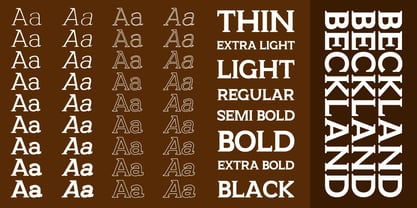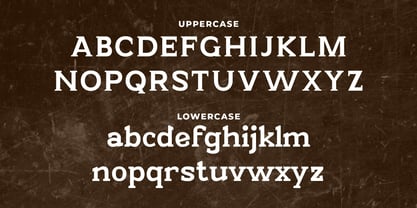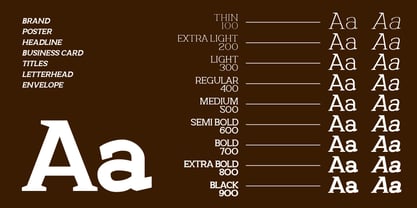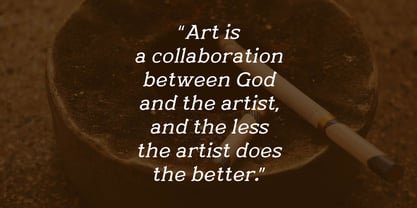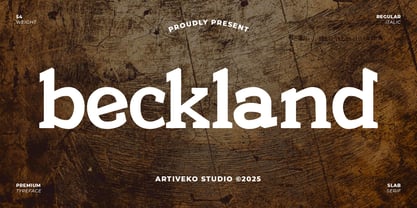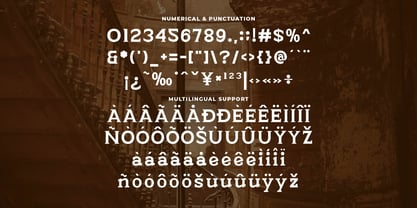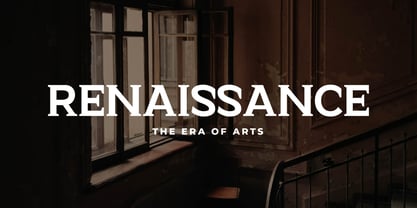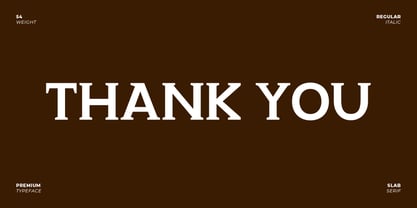
Beckland
by Artiveko
The Beckland Font Family was designed by Iwan Alwan and published by Artiveko. Beckland contains 18 styles and family package options.
Beckland is a vintage serif font designed with classic elegance and timeless charm. Inspired by old-world typography, it features refined serifs and balanced letterforms, making it perfect for branding, packaging, book covers, and editorial design. With multilingual support, ligatures, and alternates, Beckland brings a nostalgic yet sophisticated touch, ideal for projects that seek a vintage yet stylish aesthetic.
About Artiveko
Artiveko is a font design team based in Indonesia, comprised of several talented font designers who commenced their careers in the font design industry in 2020. With a dedicated focus on crafting fonts, the team members bring their collective expertise and passion to every project they undertake. Situated in Indonesia, Artiveko draws inspiration from the vibrant cultural landscape of the region, infusing their creations with unique flavors and aesthetics.The team's font collection encompasses a diverse range of styles, including serif, sans serif, handwritten, and script typefaces. Each typeface is meticulously crafted to meet the demands of modern design while offering versatility and functionality across various applications. Whether it's the classic elegance of serif fonts, the contemporary appeal of sans serif designs, the personal touch of handwritten scripts, or the expressive flourishes of script fonts, Artiveko ensures that every font reflects their dedication to quality and innovation.Artiveko's fonts have garnered recognition and acclaim, with their works being featured on prominent social media platforms like Creative Market. Through these platforms, the team has been able to connect with a global audience of designers and typographers, further amplifying their reach and influence in the industry. Their fonts are celebrated for their impeccable craftsmanship, attention to detail, and ability to elevate design projects with style and sophistication.As Artiveko continues to evolve and expand its font collection, the team remains committed to pushing the boundaries of typography and setting new standards of excellence. With a relentless focus on creativity, innovation, and collaboration, Artiveko strives to inspire and empower designers around the world with their distinctive and versatile font designs.